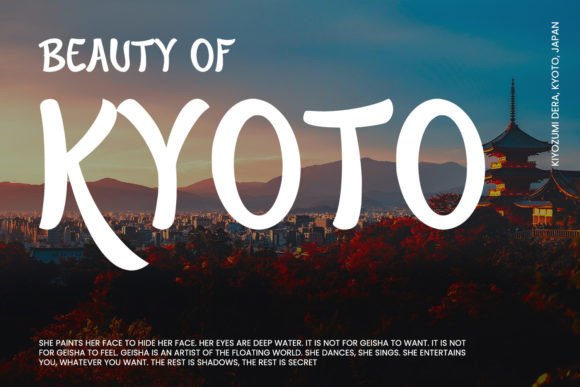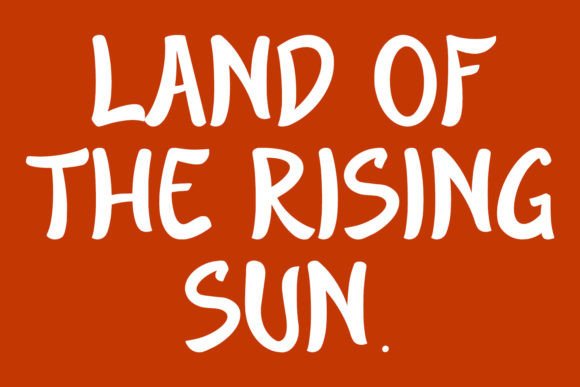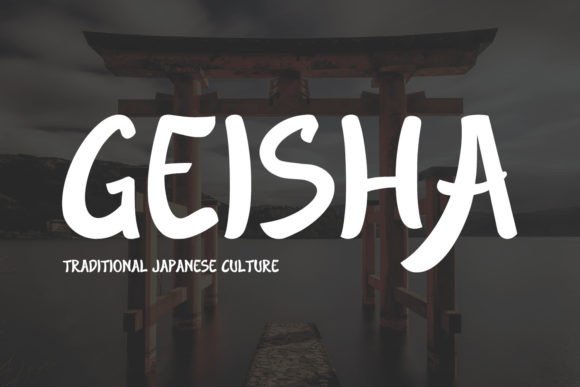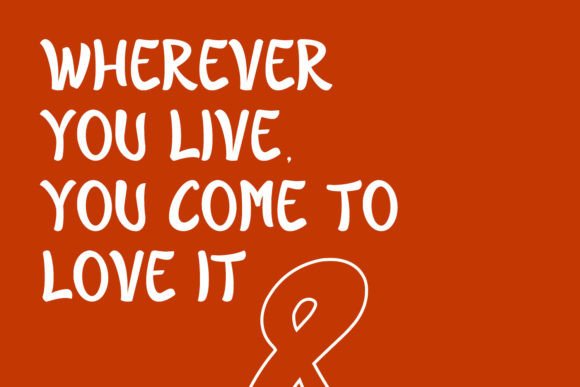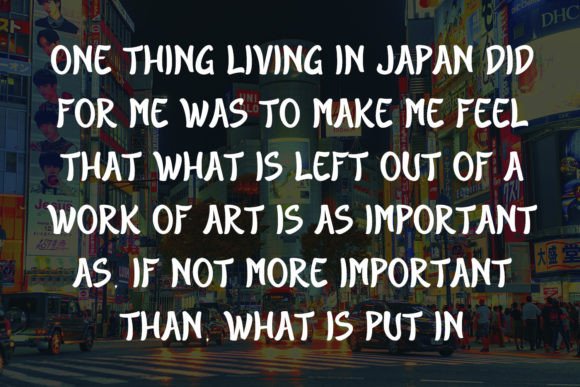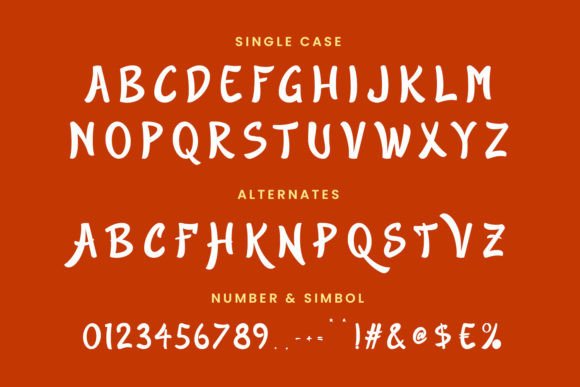
Introducing Asakusa Font: A Modern Japanese Display Font for Creative Projects
Are you looking for a unique and stylish font to elevate your design projects? Look no further than the Asakusa Font, a modern Japanese display font that is perfect for creating stunning visual content. With its bold strokes, fun character, and ligatures, this font is ideal for a wide range of applications, from logo design to movie titles, book titles, and more.
What Makes Asakusa Font Special?
The Asakusa Font is a Japanese modern display font that boasts a bold and playful design. Its unique characteristics include:
- Bold Stroke: The font features bold strokes that give it a striking appearance, making it perfect for headlines, titles, and short texts.
- Fun Character: The font has a fun and lively personality, making it ideal for creative projects that require a touch of whimsy.
- Ligatures and Alternates: The font includes ligatures and alternates, which allow you to create unique and interesting text combinations.
Use Cases for Asakusa Font
The Asakusa Font is versatile and can be used for a variety of design projects, including:
- Logo Design: The font’s bold and playful design makes it perfect for creating eye-catching logos that stand out.
- Social Media: Use the Asakusa Font to create engaging social media posts, graphics, and stories that grab attention.
- Movie Titles: The font’s cinematic feel makes it ideal for movie titles, posters, and promotional materials.
- Book Titles: The font’s elegant and modern design makes it perfect for book titles, covers, and interior design.
- Short Text and Long Text Letters: The font is suitable for both short and long text, making it a great choice for a wide range of design projects.
- Secondary Text Font: The Asakusa Font pairs well with script or serif fonts, making it an excellent choice for secondary text.
The Asakusa Font is PUA (Private Use Area) encoded, which means that you can access all of the amazing glyphs and ligatures with ease. This encoding allows you to:
- Access Alternate Characters: Switch between different character sets to create unique text combinations.
- Use Ligatures: Combine characters to create beautiful and intricate text designs.
Tips for Using Asakusa Font
To get the most out of the Asakusa Font, follow these tips:
- Experiment with Ligatures: Try out different ligatures and alternates to add visual interest to your text.
- Mix and Match with Other Fonts: Pair the Asakusa Font with script or serif fonts to create a unique and visually appealing design.
- Play with Colors and Textures: Use different colors and textures to add depth and dimension to your design.
The Asakusa Font is a versatile and stylish Japanese modern display font that is perfect for a wide range of design projects. With its bold strokes, fun character, and ligatures, this font is sure to elevate your designs and make them stand out. Whether you’re a designer, crafter, or DIY enthusiast, the Asakusa Font is a great addition to your font library.